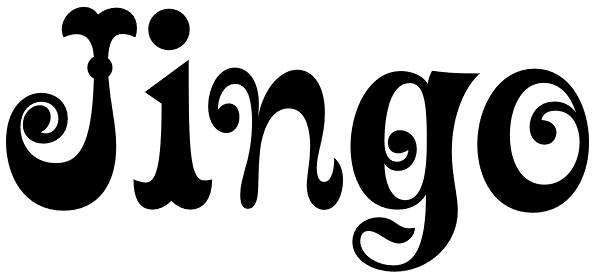
Jingo
This is the digital makeover and major expansion of a one-of-a-kind melting pot experiment done by VGC and released under the name Mardi Gras in the early 1960s. It is an unexpected jambalaya of Art Nouveau, Tuscan, wedge serifs, curlycues, ball...